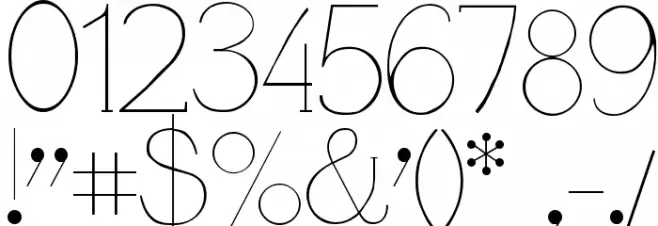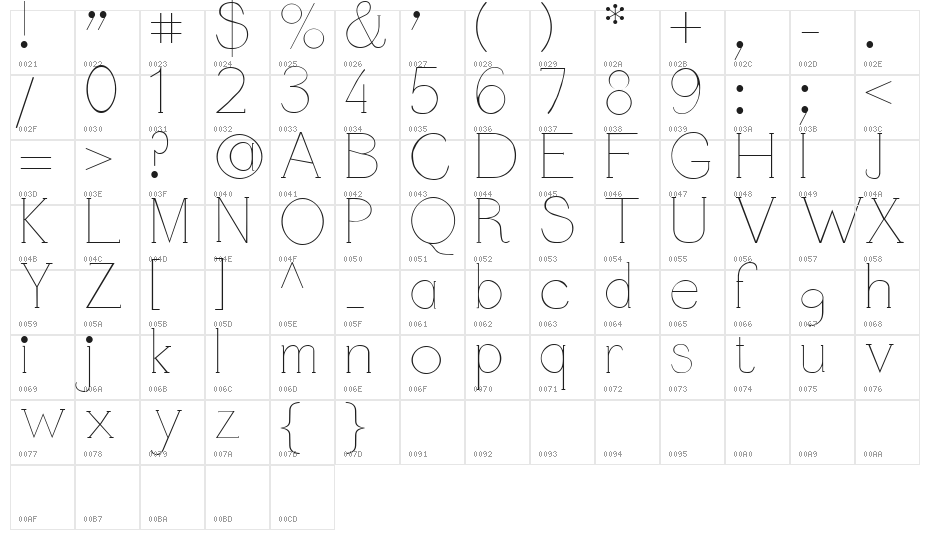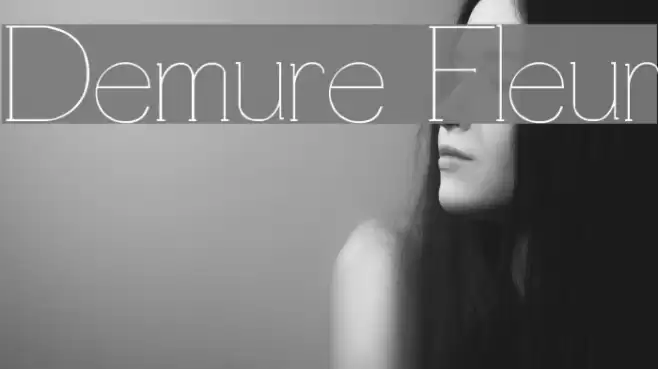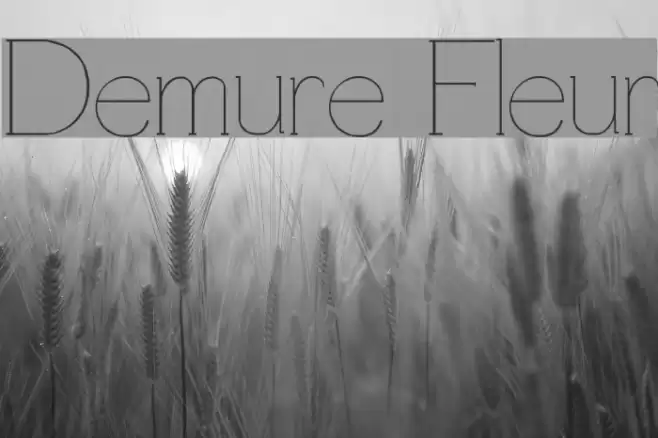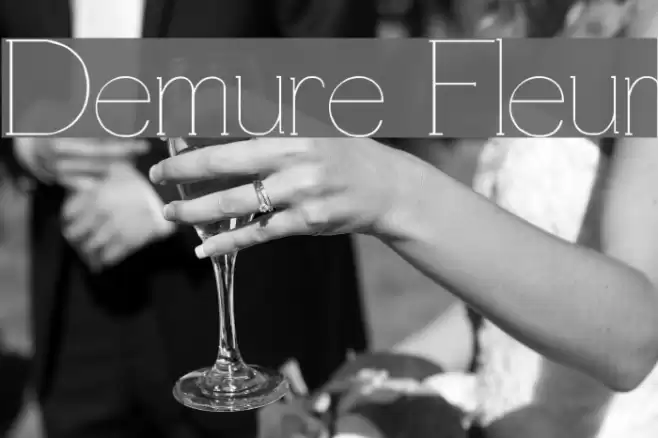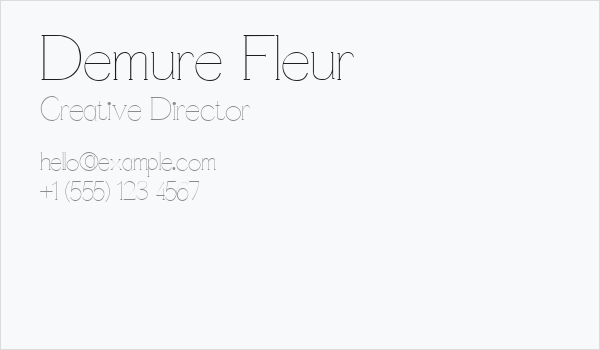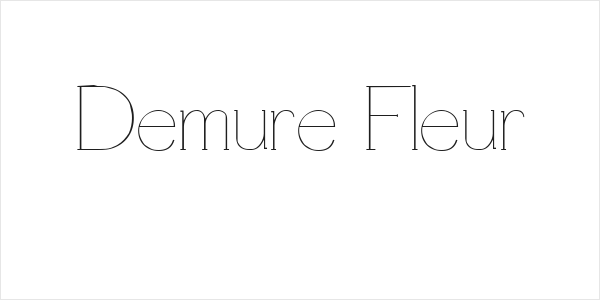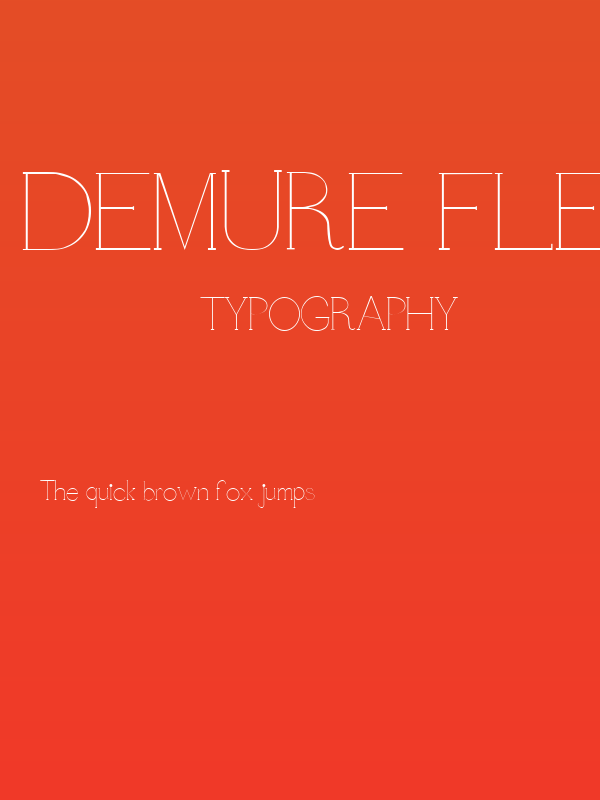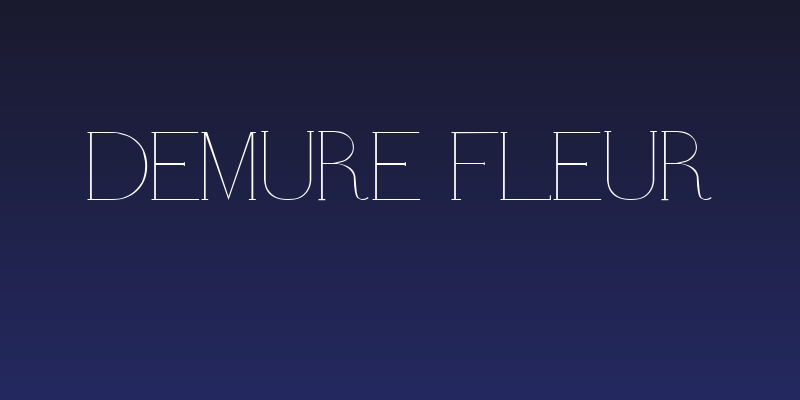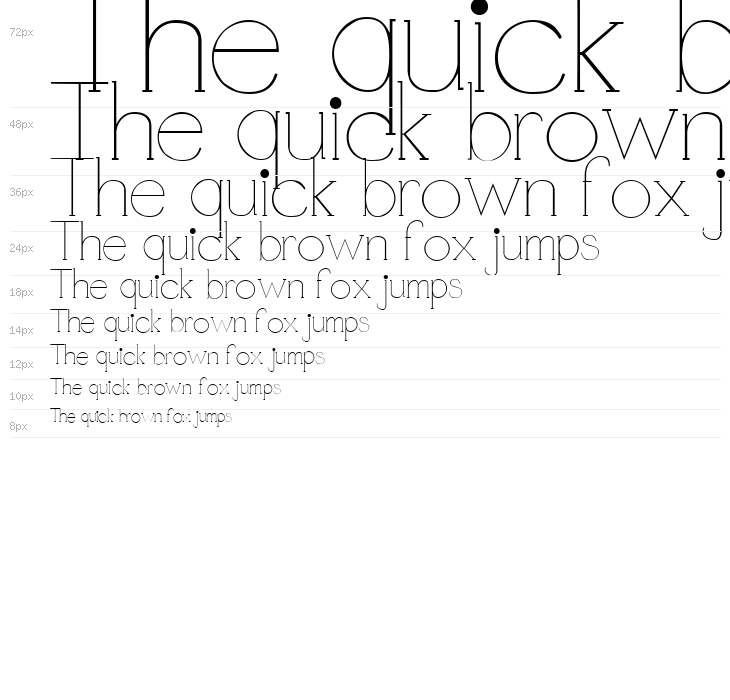
Demure Fleur Font
Demure Fleur Description
This font features a delicate and elegant design, characterized by its thin, graceful lines and subtle curves. The uppercase letters exhibit a refined simplicity, while the lowercase letters maintain a harmonious balance with their rounded forms. The numerals are consistent with the overall aesthetic, offering a clean and modern look. Special characters are thoughtfully designed, complementing the font's sophisticated style. The font's airy and open structure makes it suitable for projects that require a touch of elegance and modernity.
| Overall Style | Elegant and modern |
| Use Case | Headlines, Invitations, Branding |
| Proposed Projects | Ideal for wedding invitations, luxury branding, fashion magazines, and elegant packaging. |